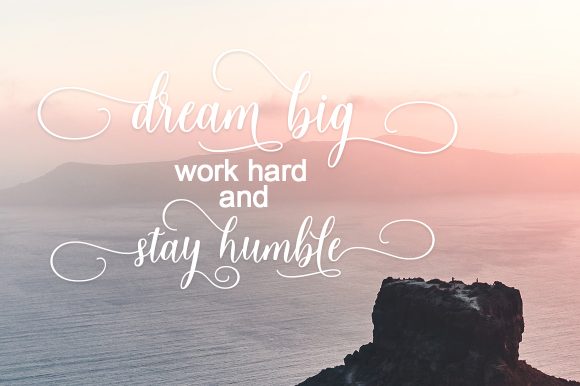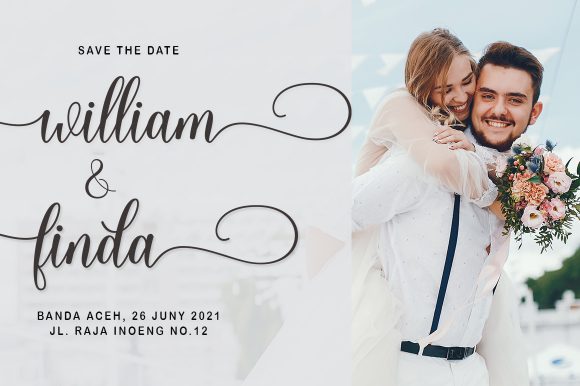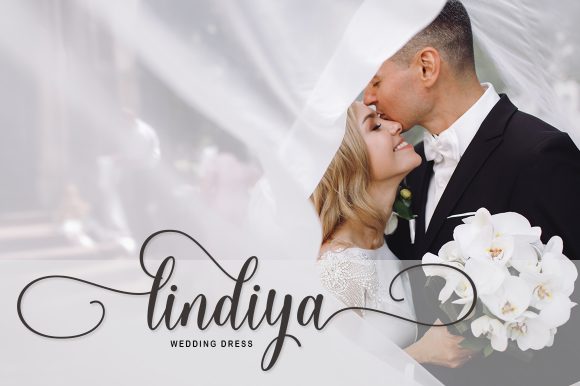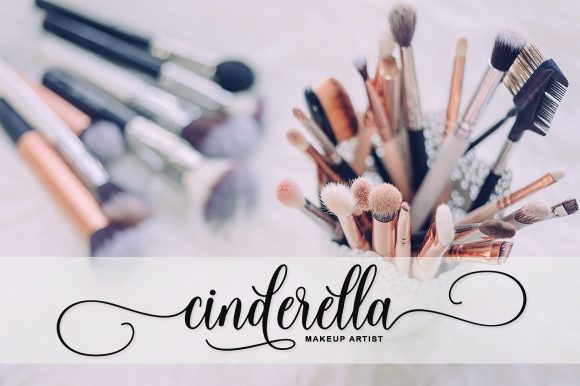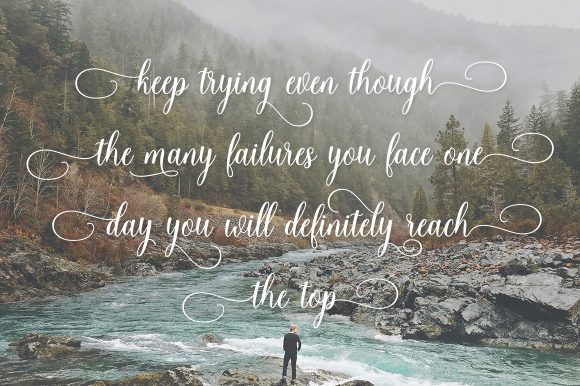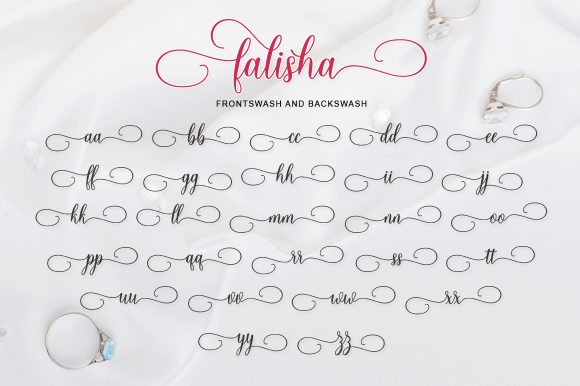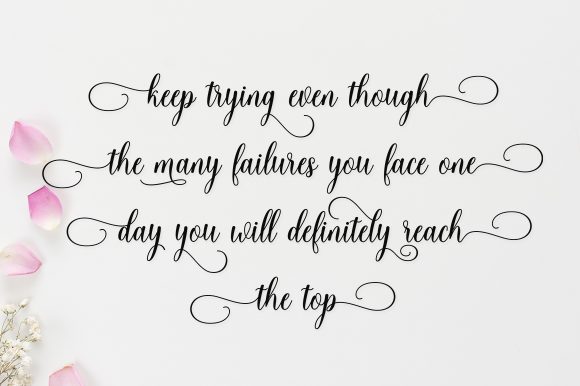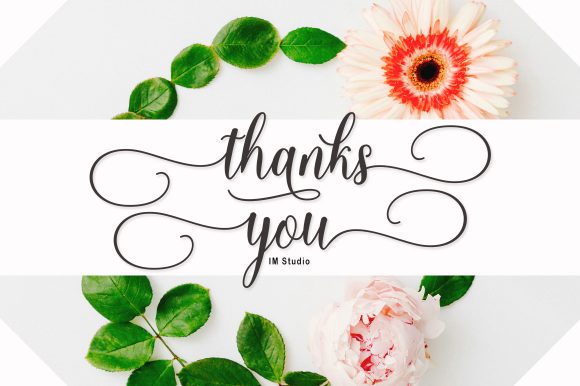
Falisha Font
About Falisha Font
Falisha is a beautiful light handwritten font with a unique feel and a stunning impact. It will add a luxury spark to any design project that you wish to create! This font is PUA encoded which means you can access all glyphs and swashes with ease!